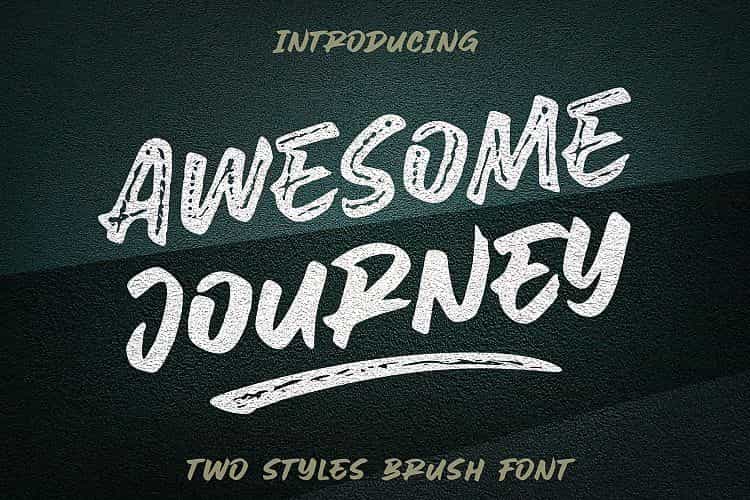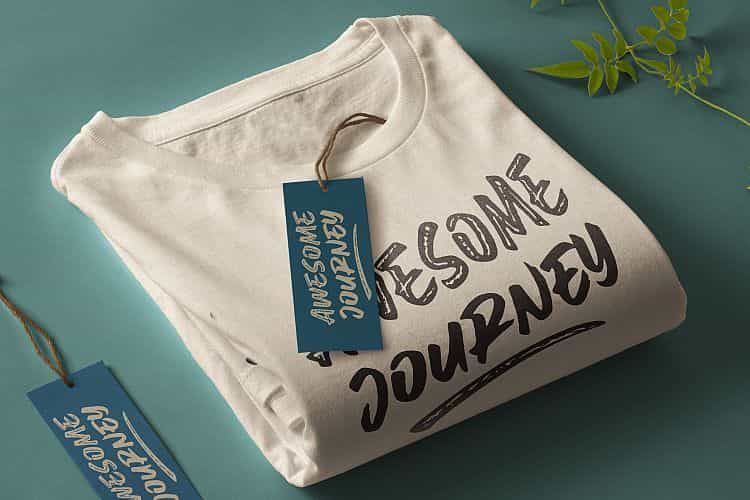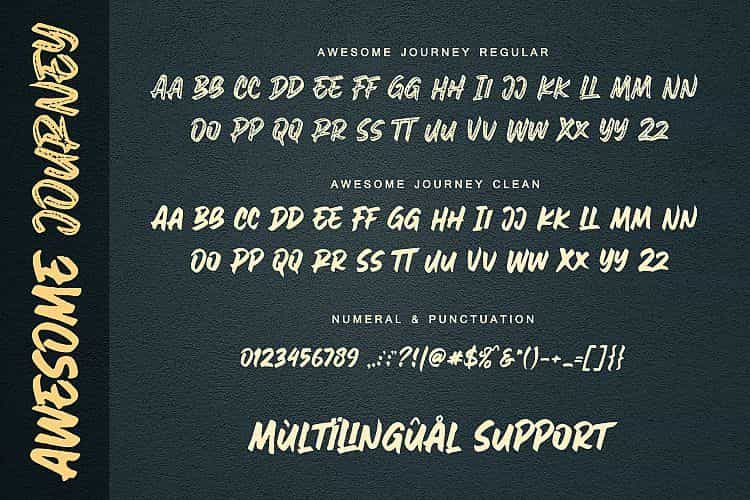
Awesome Journey Font – is brush hand-drawn font and strong bold looks. It has a positively unpretentious ambiance and creates a marvelous opportunity to lend a natural aspect to the design. This is Subectype’s creation and selected to be published here. It is a two styles brush font; street-wise brush font packed with energy.